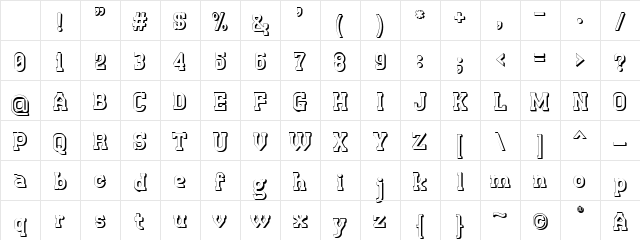
Retro Town wears its vintage influences proudly, with letterforms that recall mid-century signage, classic packaging, and nostalgia-driven design.
Font Pairing: Combine Retro Town with a simple slab or neutral sans - period-accurate companions reinforce the vintage feel without competing for attention.
Pro Tip: Lean into Retro Town's period character by pairing it with aged paper textures, muted colour palettes, and vintage illustration styles.